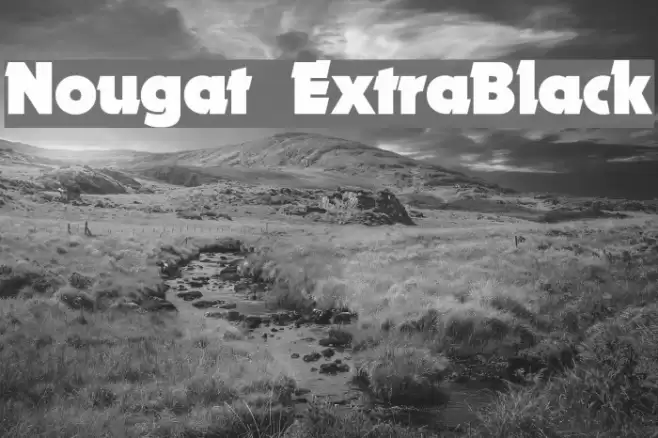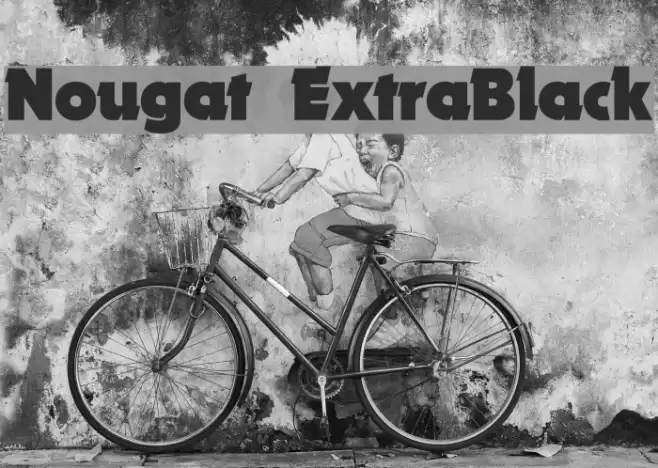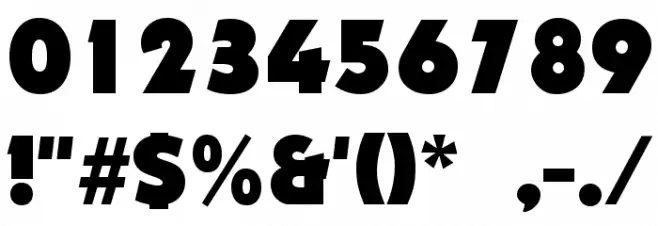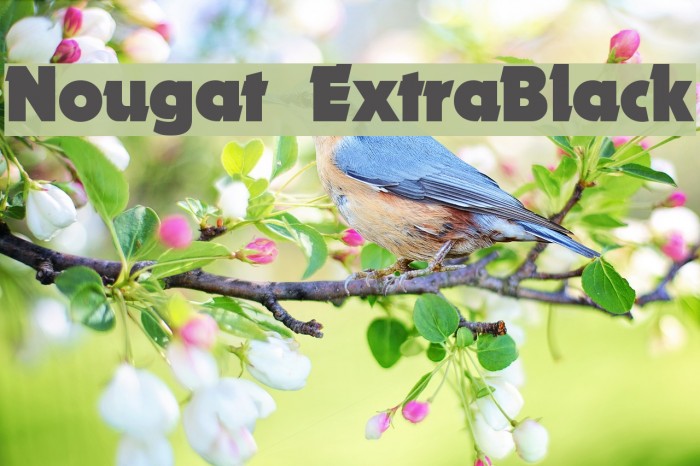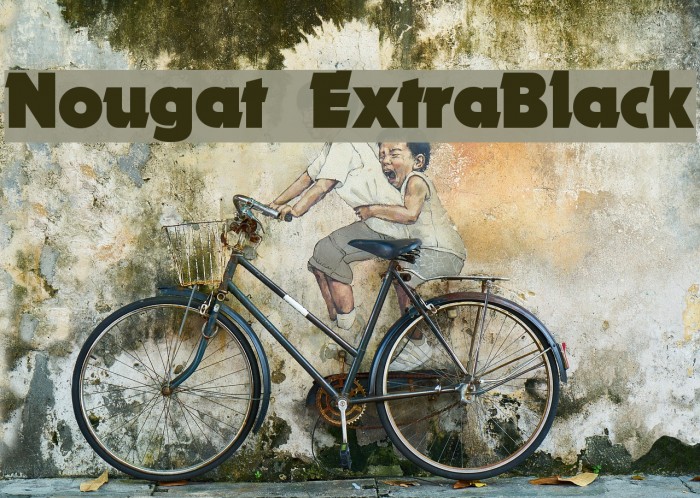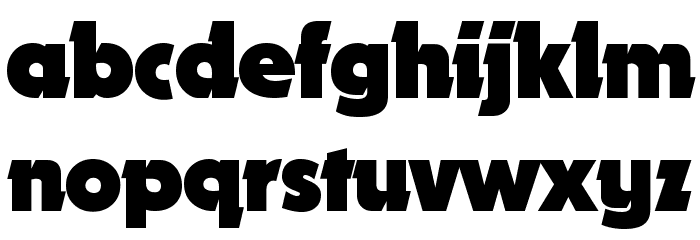
Nougat ExtraBlack Font
Nougat ExtraBlack Description
This font features a bold and impactful design with thick, heavy strokes that create a strong visual presence. The characters are well-defined with a slightly condensed appearance, making them suitable for attention-grabbing headlines and titles. The uppercase and lowercase letters maintain a consistent style, with rounded edges that add a touch of softness to the otherwise robust design. The numerals and special characters are equally bold, ensuring uniformity across all text elements. This font's substantial weight and clear legibility make it ideal for projects that require a commanding and assertive typeface.
A bold, impactful font with thick strokes and a slightly condensed style from Retro fonts.
- Proposed Projects: Ideal for branding, posters, headlines, and any design needing a strong visual impact.